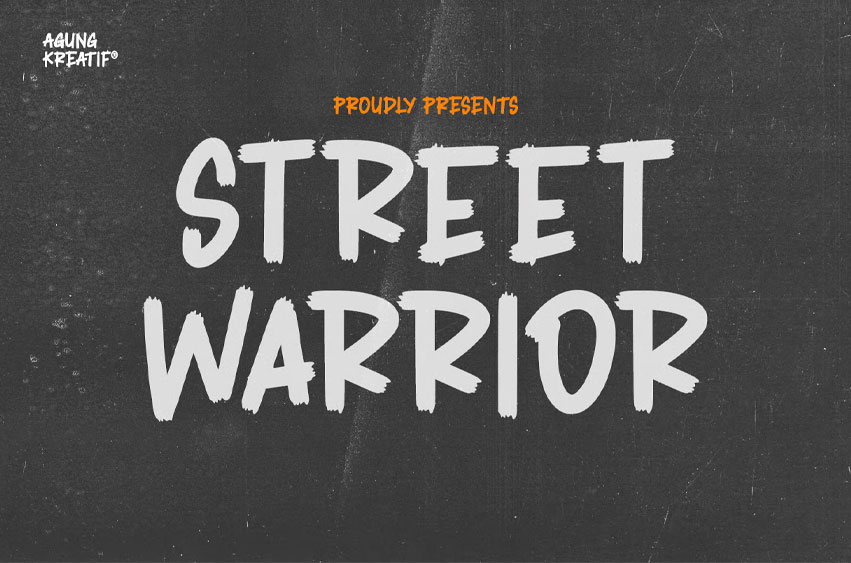
Street Warrior Font
Street Warrior Font is A Bold and Action-Packed Brush Font. Bring an unmatched energy and spirit to all your projects with Street Warrior, a modern brush font crafted with strong, confident strokes. Inspired by fast-paced and character-driven movements, this font is designed to make a maximum visual impact. With its unique texture and sharp letterforms, Street Warrior is the perfect choice for designs that need to stand out.
Street Warrior is ideal for various creative projects that require an authentic and urban touch. Use this font for:
• Logos and Branding: Build a strong and unforgettable brand identity.
• Posters and Album Covers: Perfect for music, extreme sports events, or adventurous projects.
• Product Packaging: Give your products a bold and distinctive look.
• Marketing Materials: Create eye-catching posters, banners, or social media graphics.
• Distinctive Brush Style: Authentic brush strokes that give a handmade feel.
• Bold and Assertive Look: Suitable for headlines and titles that must grab attention.
• Versatile: Can be used for a wide range of themes, from urban to sports.
Show your fighting spirit and creativity with Street Warrior. This font is more than just a tool—it’s a visual statement.